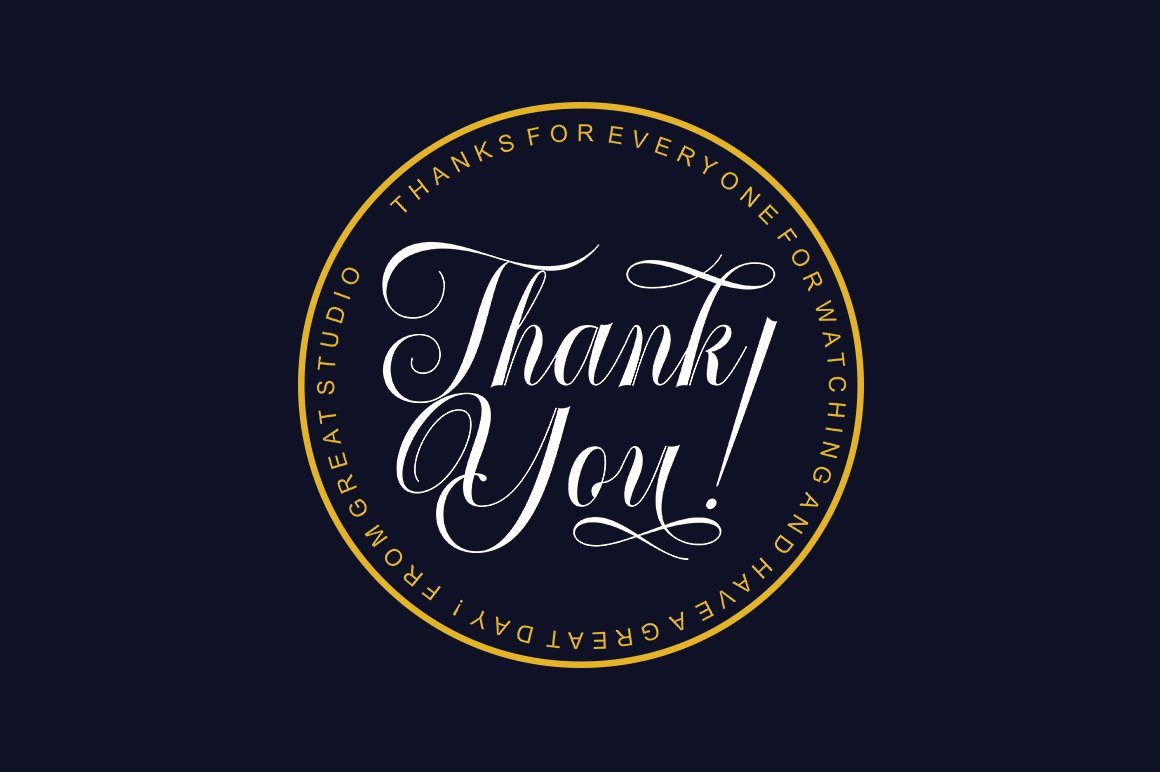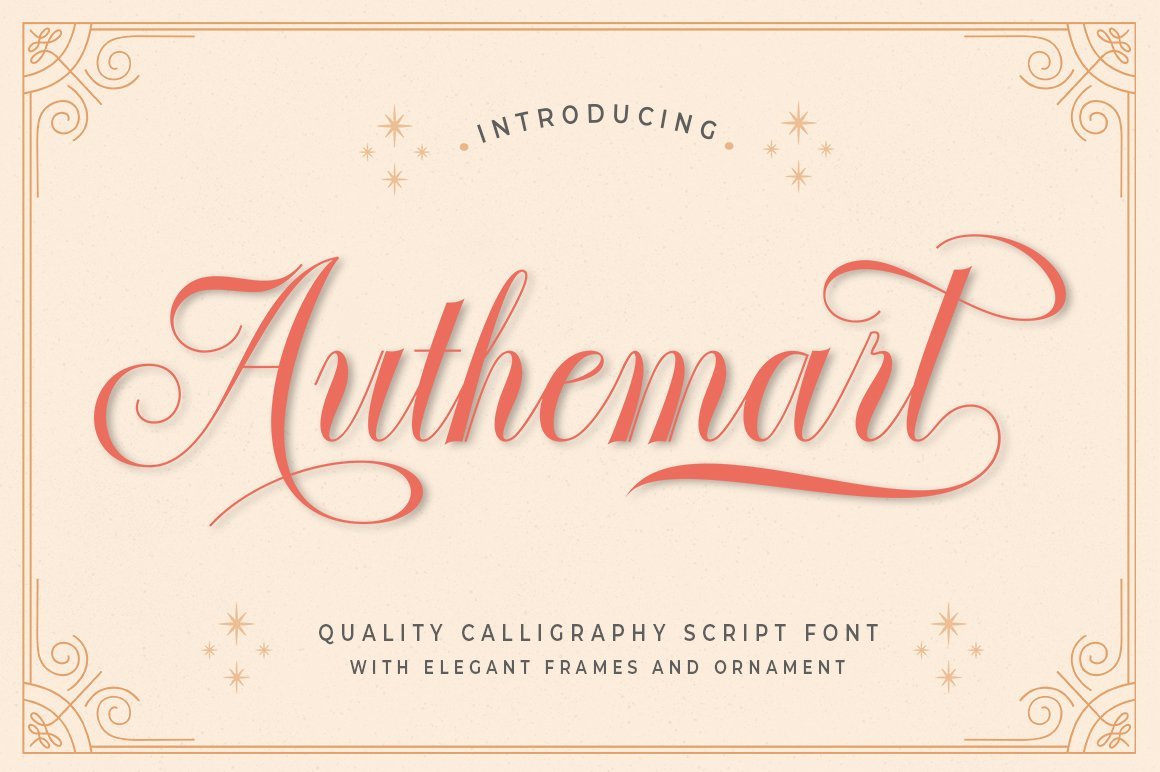
About Authemart + Elegant Fremes & Ornament
Introducing a new quality calligraphy font is Authemart Script. High-quality script fonts come with modern and vintage touches in them. Inspired by a mixture of copper calligraphy with handlettering style. OpenType feature with Stylistic Alternatives, Swash, Ligatures, Stylistic sets. It allows you to mix and match letter pairs to fit your design, and also comes with modern ornaments to make this font look elegant and perfect. Authemart is attractive like a smooth, clean, feminine, sensual, glamorous, simple and very easy to read. The classic style is perfect to be applied in various formal forms such as invitations, labels, menus, logos, fashion, make up, stationery, letterpress, romantic novels, books, greeting / wedding cards, packaging, labels, and more. Files included: • Authemart ( otf ) • Authemart ( ttf ) • Authemart Extas ( otf ) • Authemart Extas ( ttf ) Authemart also supports in pragram, Adobe Illustrator, Adobe Photoshop, Adobe InDesign, Corel Draw X version, Microsoft Word, Language Support : Albanian, Basque, Breton, Chamorro, Danish, Dutch, English, Faroese, Finnish, French, Frisian, Galician, German, Icelandic, Italian, Malagasy, Norwegian, Portuguese, Spanish, Swedish. How to access all alternative characters using Adobe Illustrator: • https://www.youtube.com/watch?v=XzwjMkbB-wQ How to use stylistic sets fonts in Microsoft Word 2010 or later versions: • https://www.youtube.com/watch?v=NVJlZQ3EZU0 There are additional ways to access alternates / swashes, using the Character Map (Windows), Nexus Font (Windows) Font Book (Mac) or a software program such as PopChar (for Windows and Mac). How to access all the alternative characters, using the Windows Character Map with Photoshop: • https://www.youtube.com/watch?v=Go9vacoYmBw Need help? If you need help or advice, please contact me by e-mail : ‘  ‘ Thank you for your purchase!